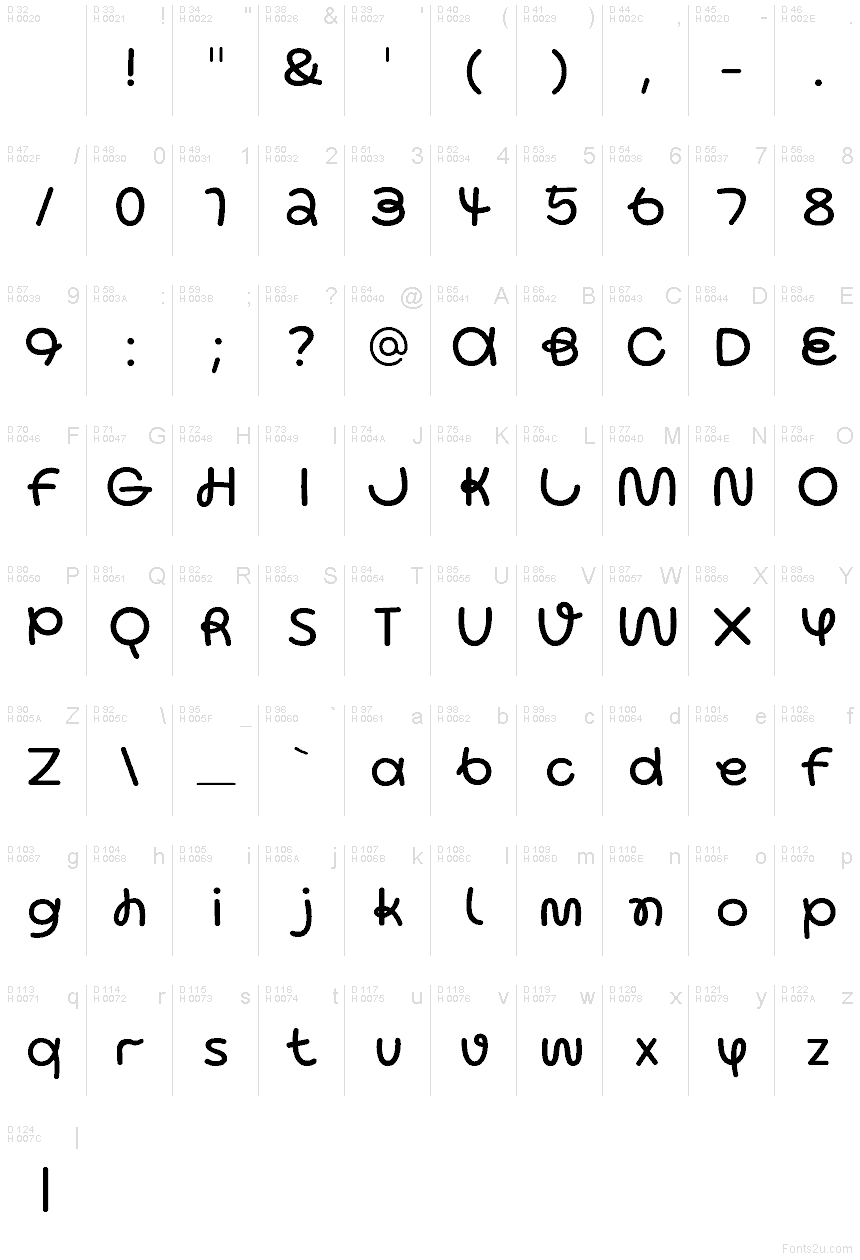
Bauhaus Lace Rnd Display Regular
Bauhaus Lace Rnd Display font by Saskia is a free handwritten typeface from the Bauhaus Lace family. Its charm lives in rounded, geometric letters drawn with an easy, ink-on-paper wobble—think soft circles, playful loops, and airy counters that keep words feeling light. The forms stay consistent without turning stiff, giving headlines a friendly, modern swing with a crafty, human pulse.
Using Bauhaus Lace Rnd Display, your work shines on kids’ posters, craft branding, bakery menus, DIY packaging, event invitations, stickers, and cheerful social graphics. The circular rhythm reads warmly at larger sizes, so let it lead and keep supporting text simple—pair with a clean sans like a neo-grotesque for balance. This free font adds a breezy, handmade lift wherever you want approachable character.